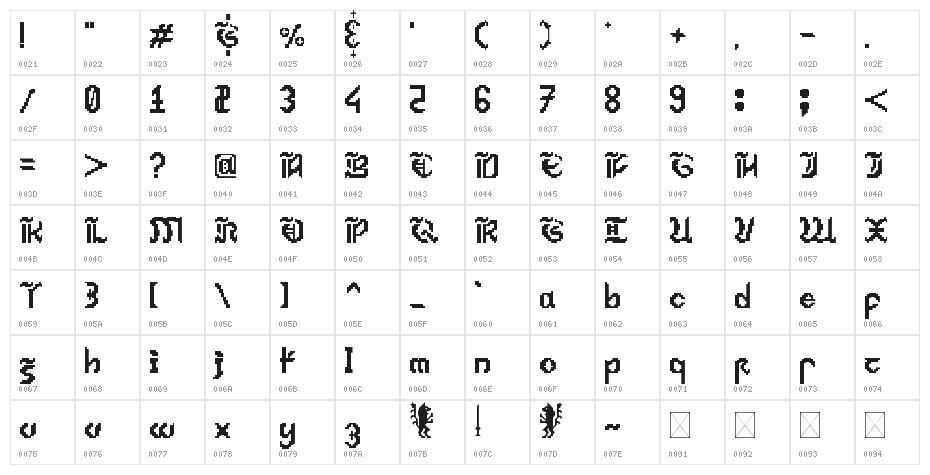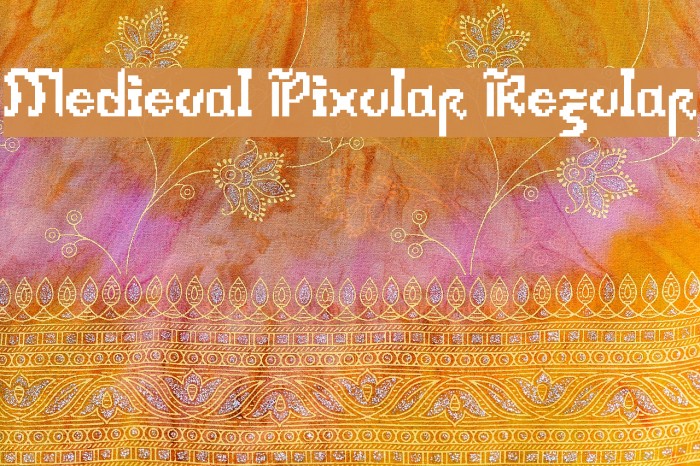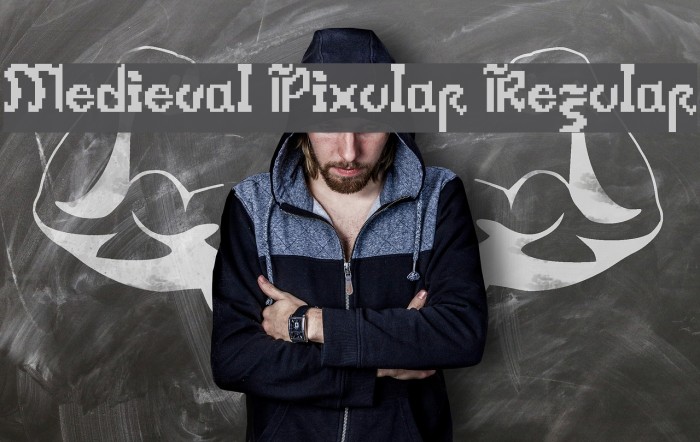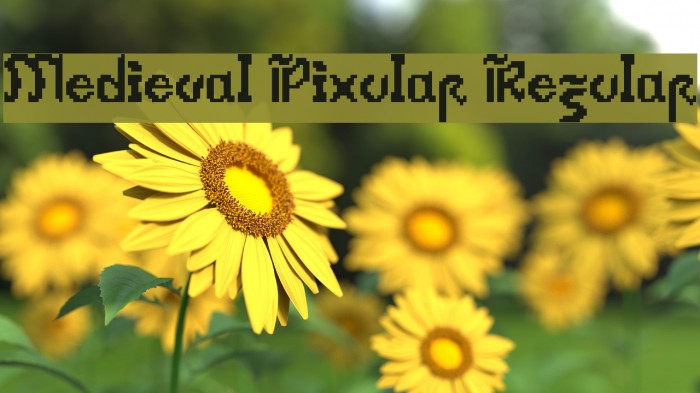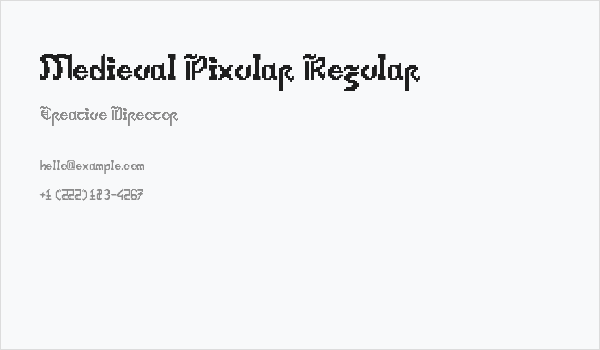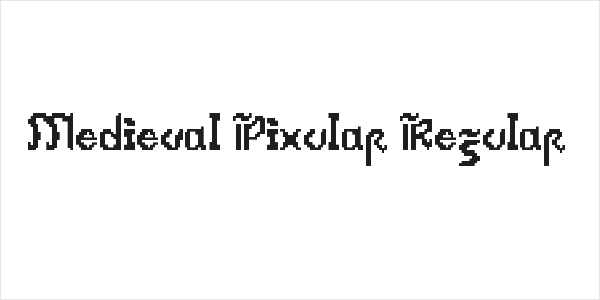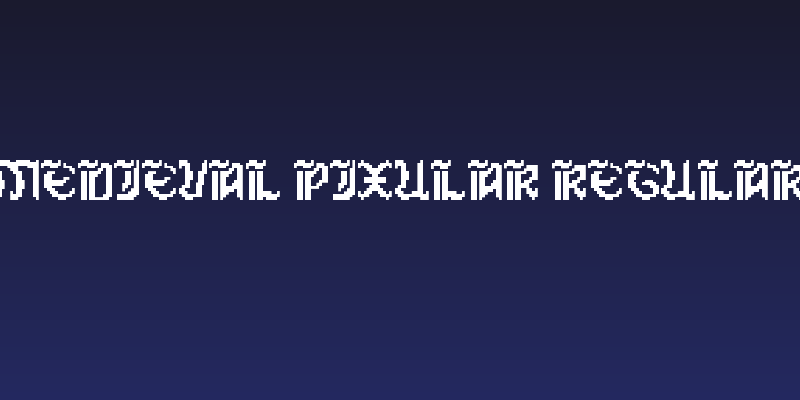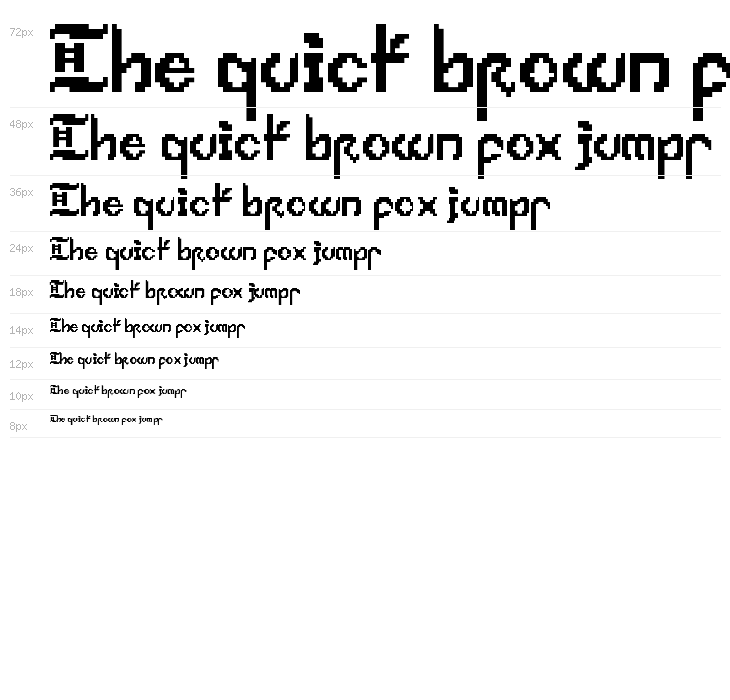
Medieval Pixular Regular Font
Medieval Pixular Regular Description
This font features a pixelated, medieval-inspired design that combines the charm of old-world typography with a modern, digital twist. Each character is crafted with a blocky, pixelated style that evokes the aesthetics of early computer graphics, yet retains the intricate details reminiscent of medieval script. The uppercase and lowercase letters maintain a consistent pixelated form, while numbers and special characters follow the same stylistic approach, ensuring uniformity across all text. This font is ideal for projects that aim to blend historical themes with a retro digital look.
| Overall Style | Retro, Medieval, Digital |
| Proposed Projects | Ideal for video game design, retro-themed posters, digital art projects, and any creative work that seeks to combine medieval themes with a pixel art style. |